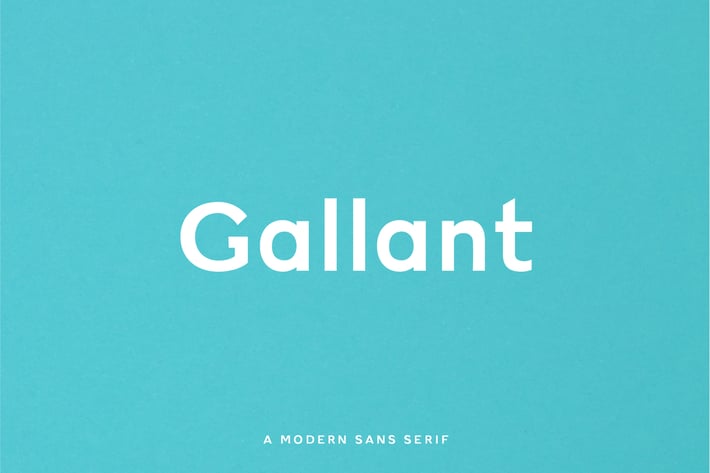
Gallant - A Geometric Typeface
Gallant is a modern, geometric, sans serif typeface. It has a little bit of personality and can be used for both headers and body copy. This font family includes all Latin characters (including accents), numbers, special characters, and punctuation.